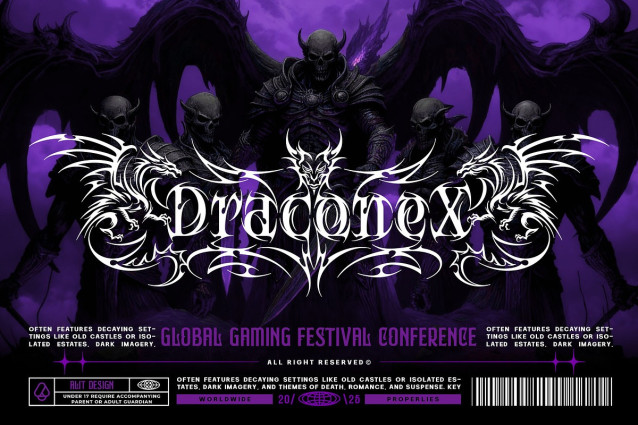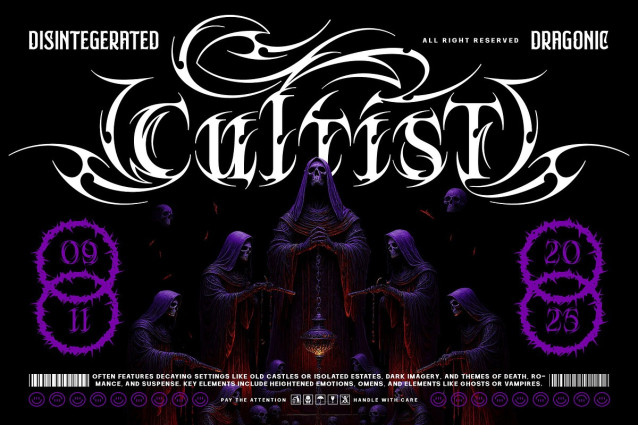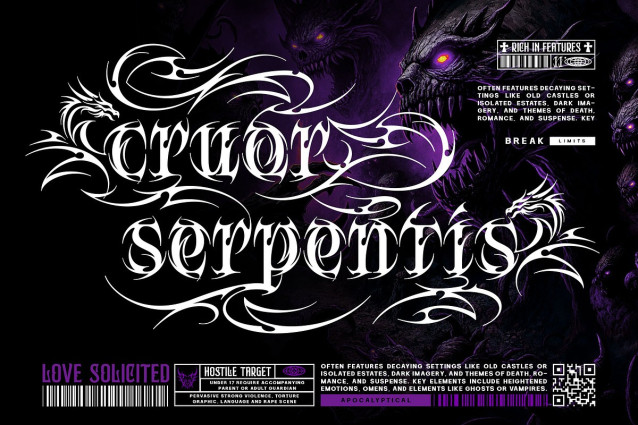
Cursed Claw Font
Cursed Claw Font, a typographic embodiment of darkness and dominance. This isn’t just a font; it is a weapon for your design arsenal. Inspired by the raw aggression of “Gothical Streetwear” and the intricate sharp edges of tribal tattoos, Cursed Claw evokes the spirit of ancient dragons. Every stroke is carved with a “dragon-shaped edge,” making it look venomous, violent, and undeniably captivating.
The Aesthetic Cursed Claw bridges the gap between medieval blackletter traditions and the rebellious energy of modern underground culture. It is perfectly engineered for designs that demand attention—from death metal album covers and grim fantasy branding to high-end streetwear merchandise.
Why Cursed Claw? With a massive library of 951 glyphs, Cursed Claw offers valid versatility. It is not static; it is a living, breathing creature. You can customize your typography endlessly with multiple Stylistic Sets (SS01-SS04), allowing you to switch between decorative, dragon-scale ornate capitals and sharper, more legible forms.